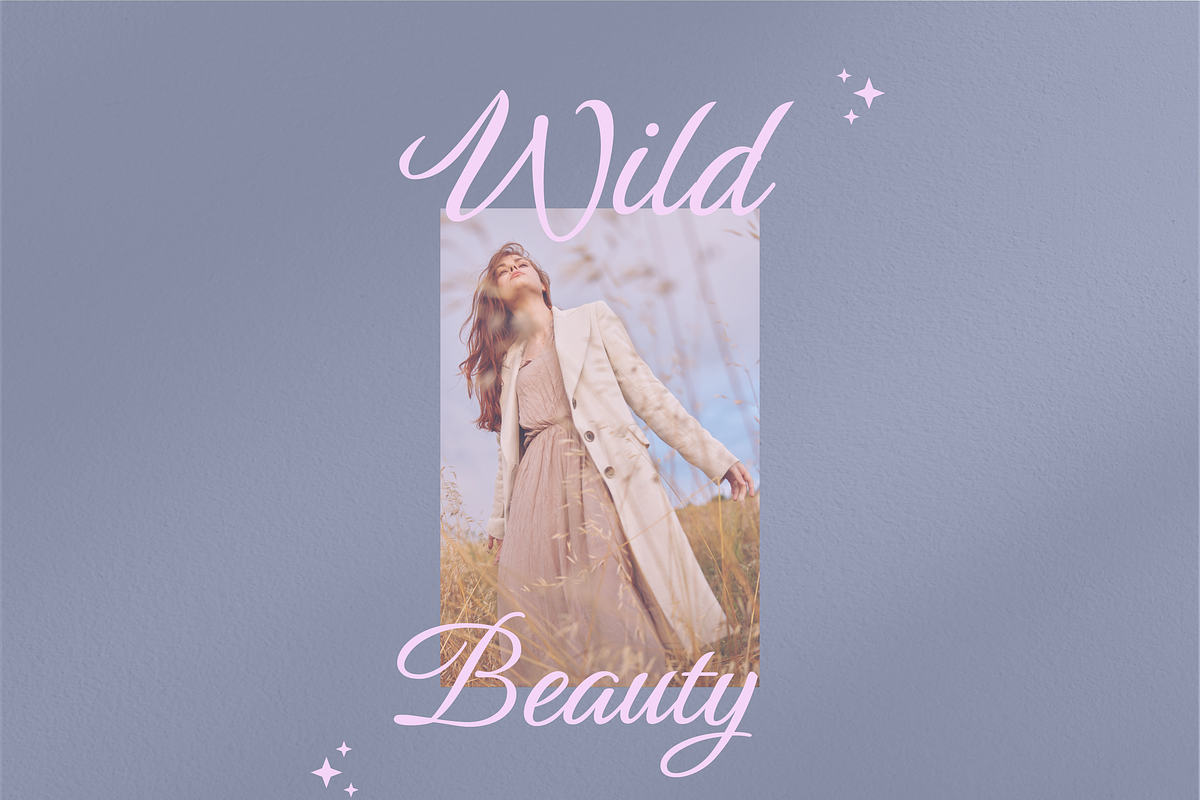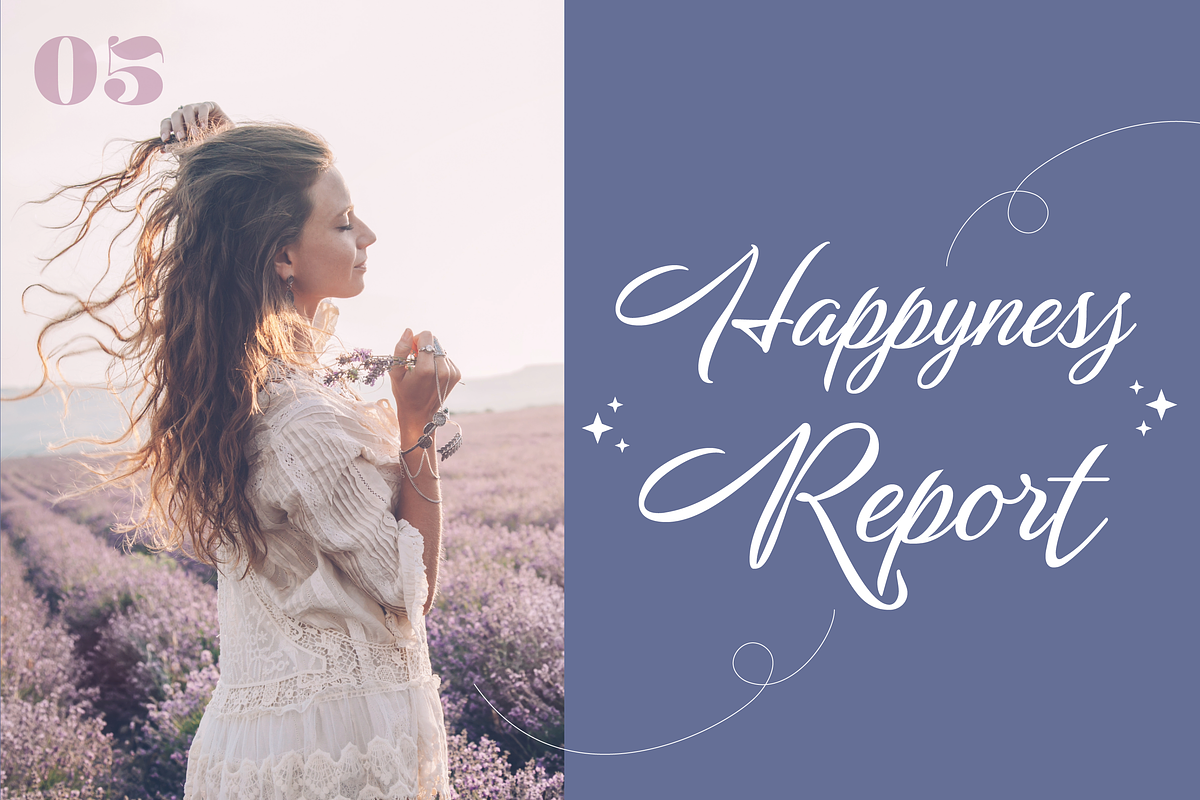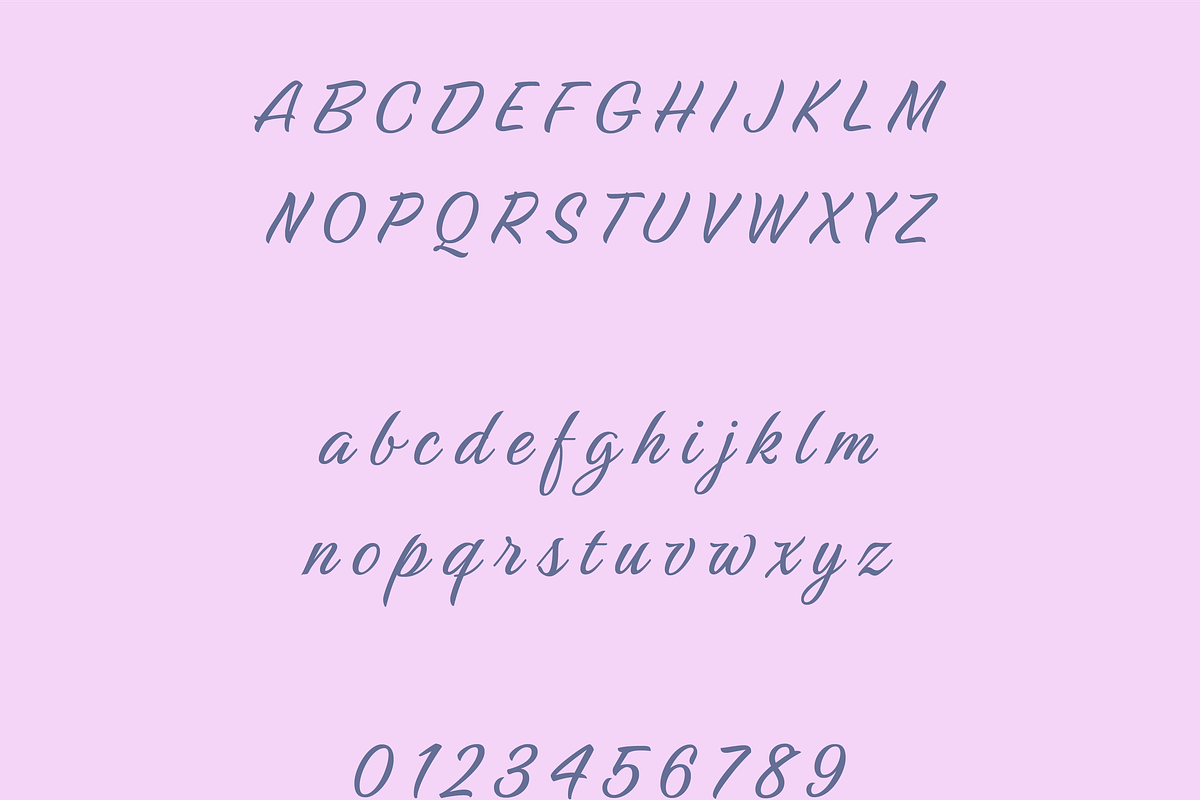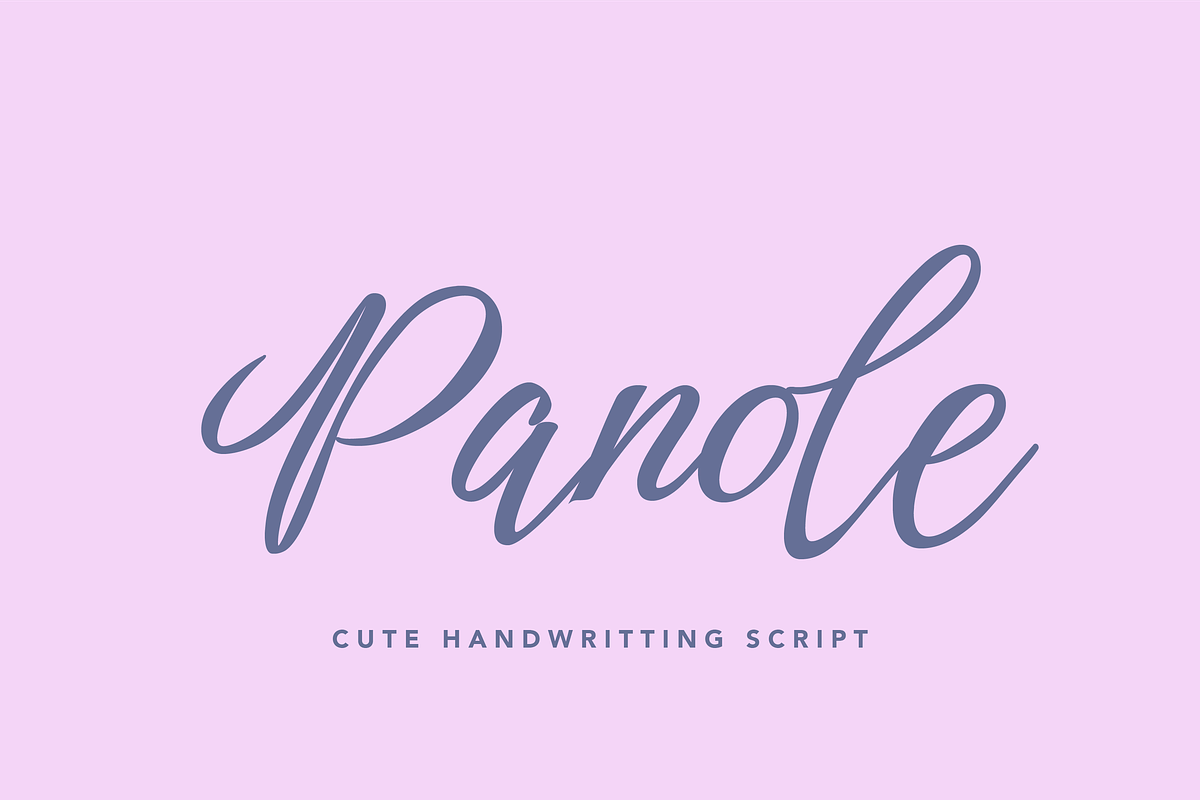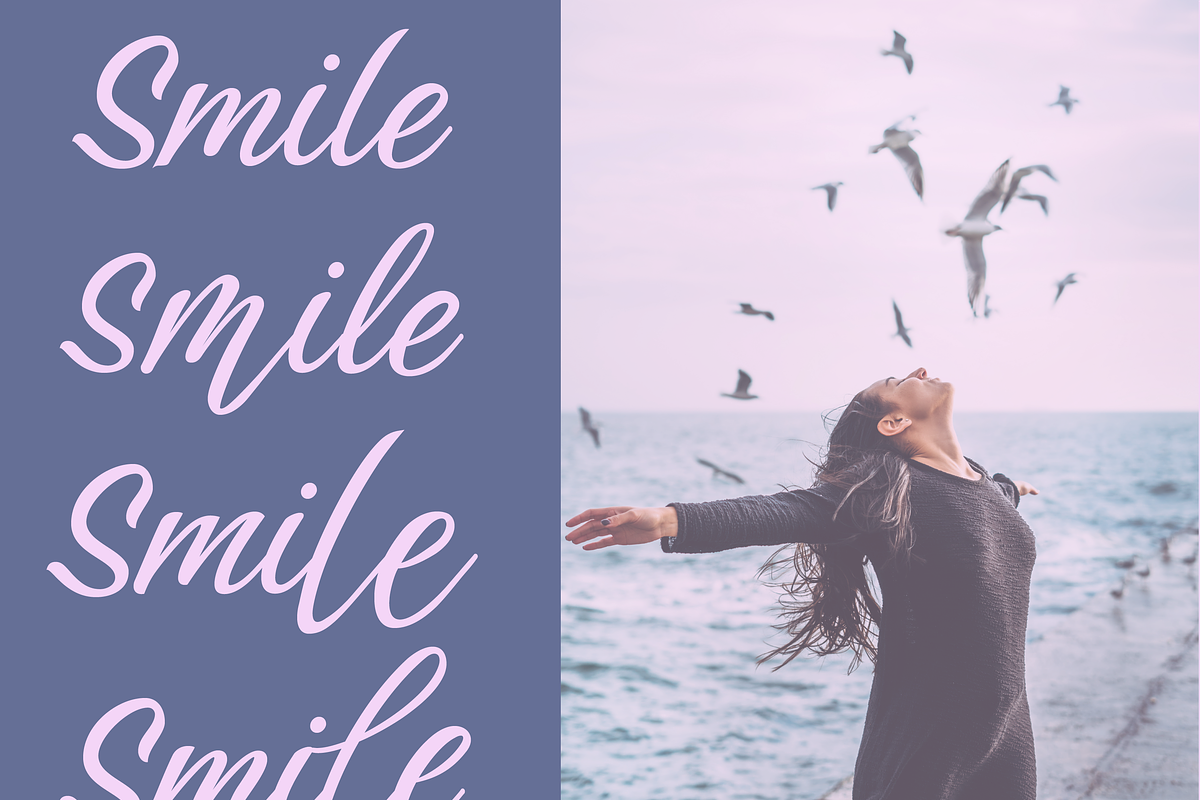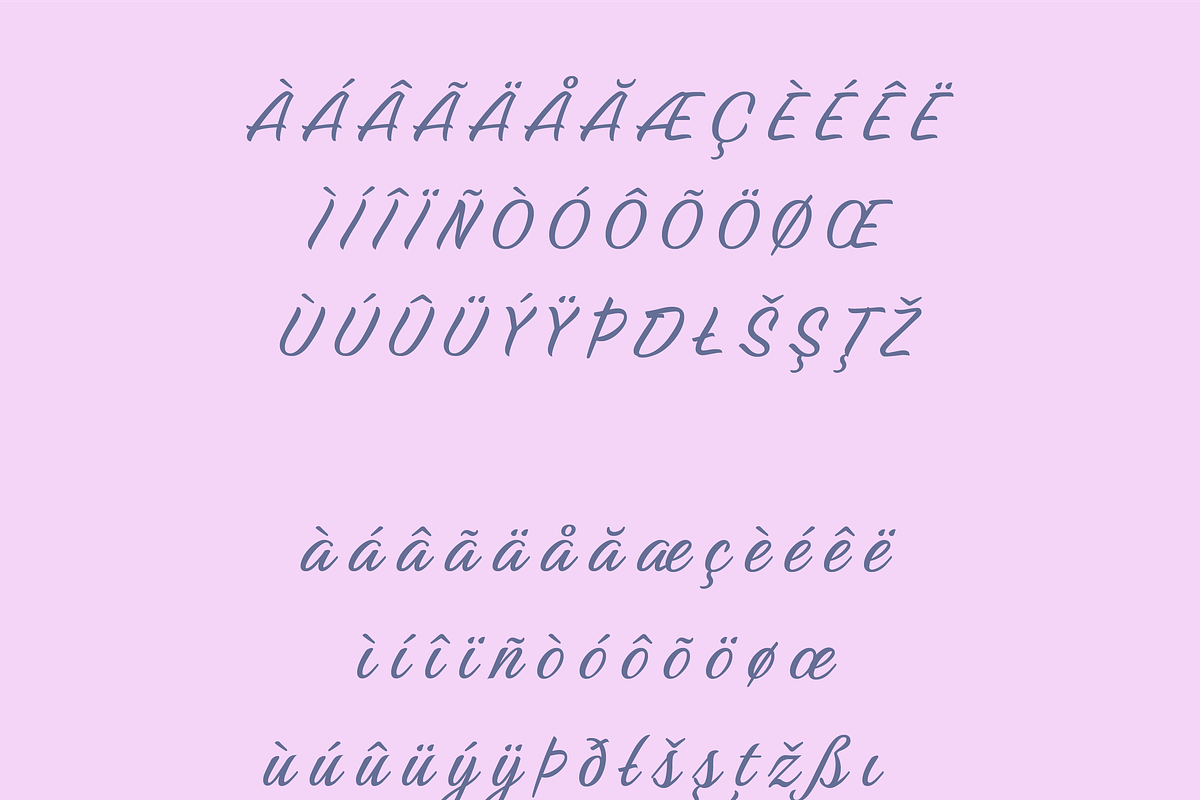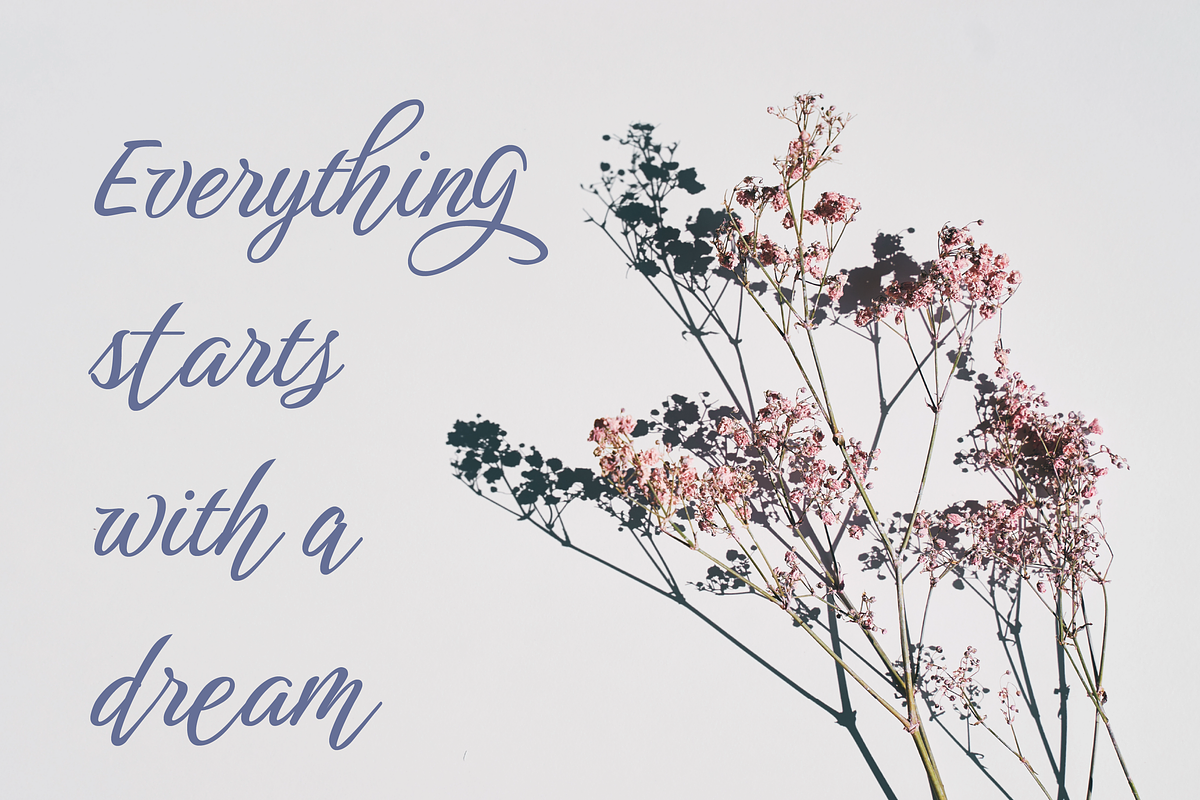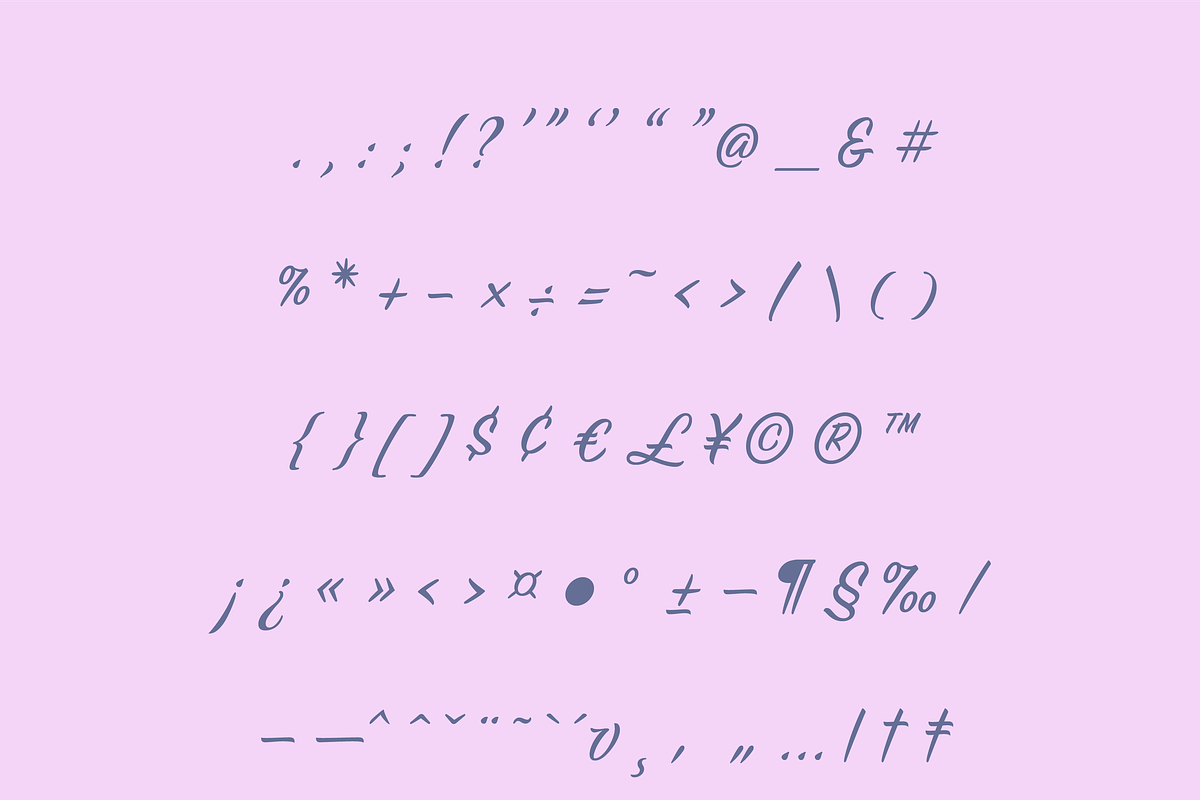
Panole Calligraphy Script
Panole Script – Nostalgic Charm with a Modern Twist
Panole Script is a retro-inspired typeface that masterfully blends vintage elegance with a fresh, playful aesthetic. Designed to capture the essence of mid-century signage and classic advertisements, its smooth, flowing curves and lively letterforms exude warmth and timeless appeal.